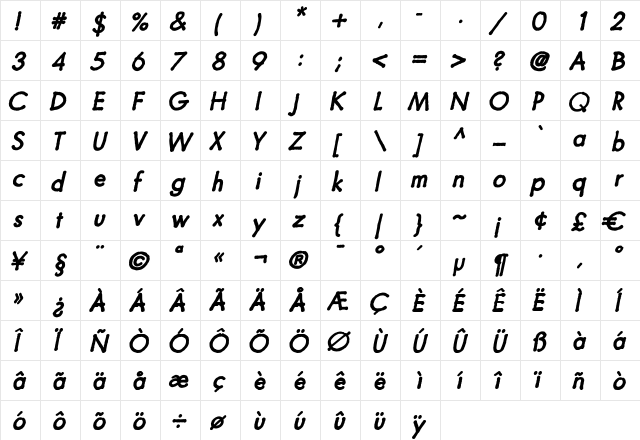
Futuramano Bold Italic
Design Context for Futuramano Typeface
Futuramano has a distinctly futuristic character, with geometric precision and clean angles that feel at home in technology, gaming, and sci-fi contexts. The dynamic lean of this cut emphasises speed and emphasis in any layout. The heavy weight commands attention and anchors typographic hierarchies.